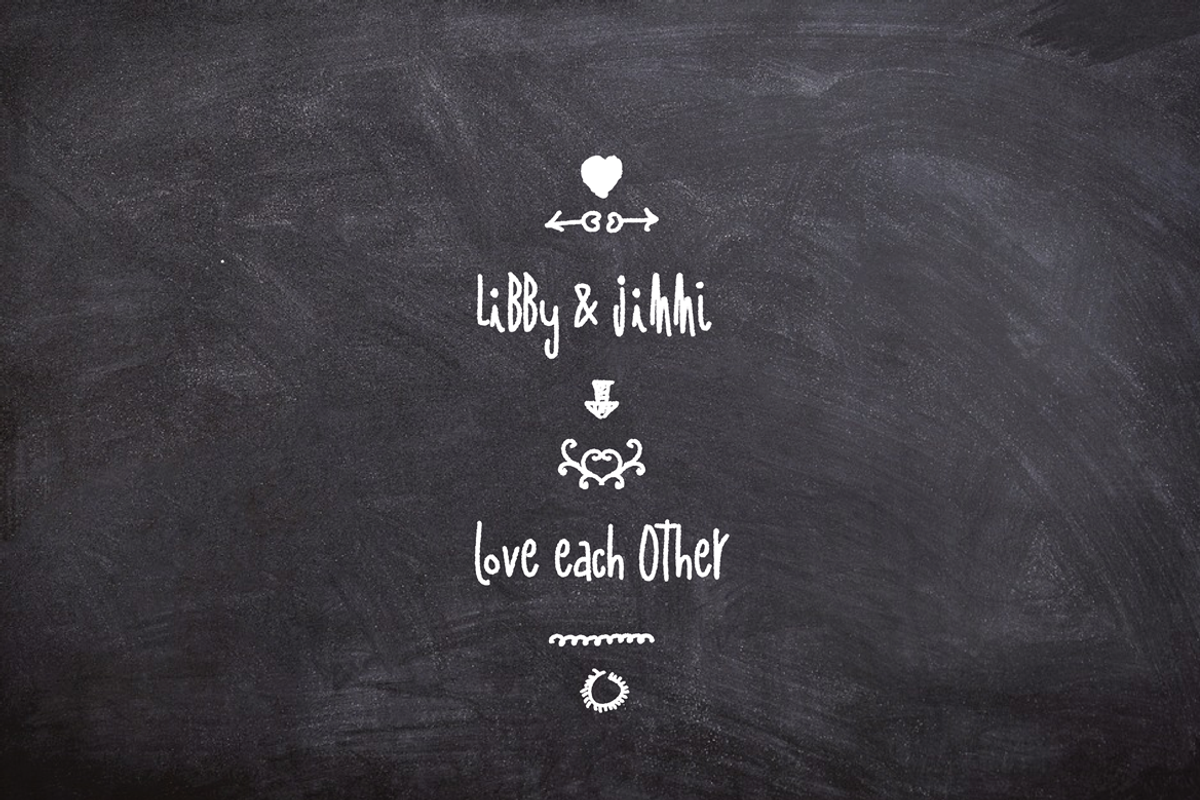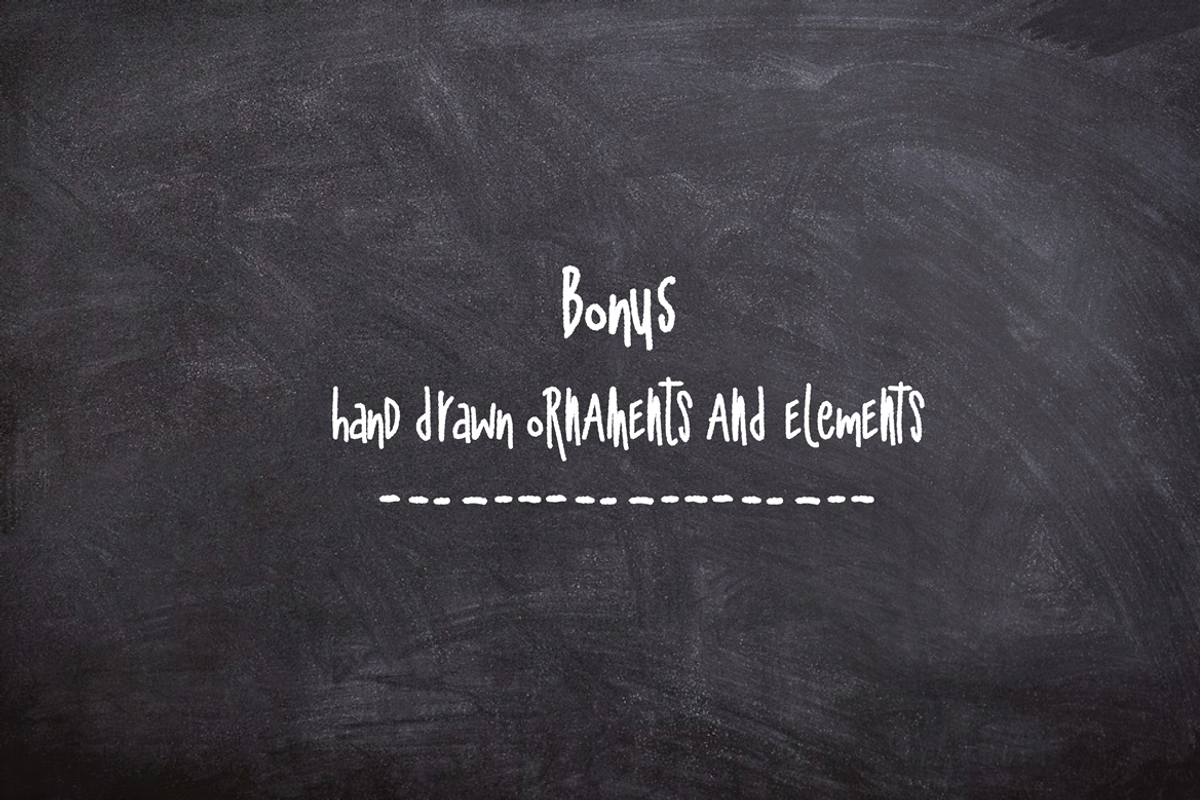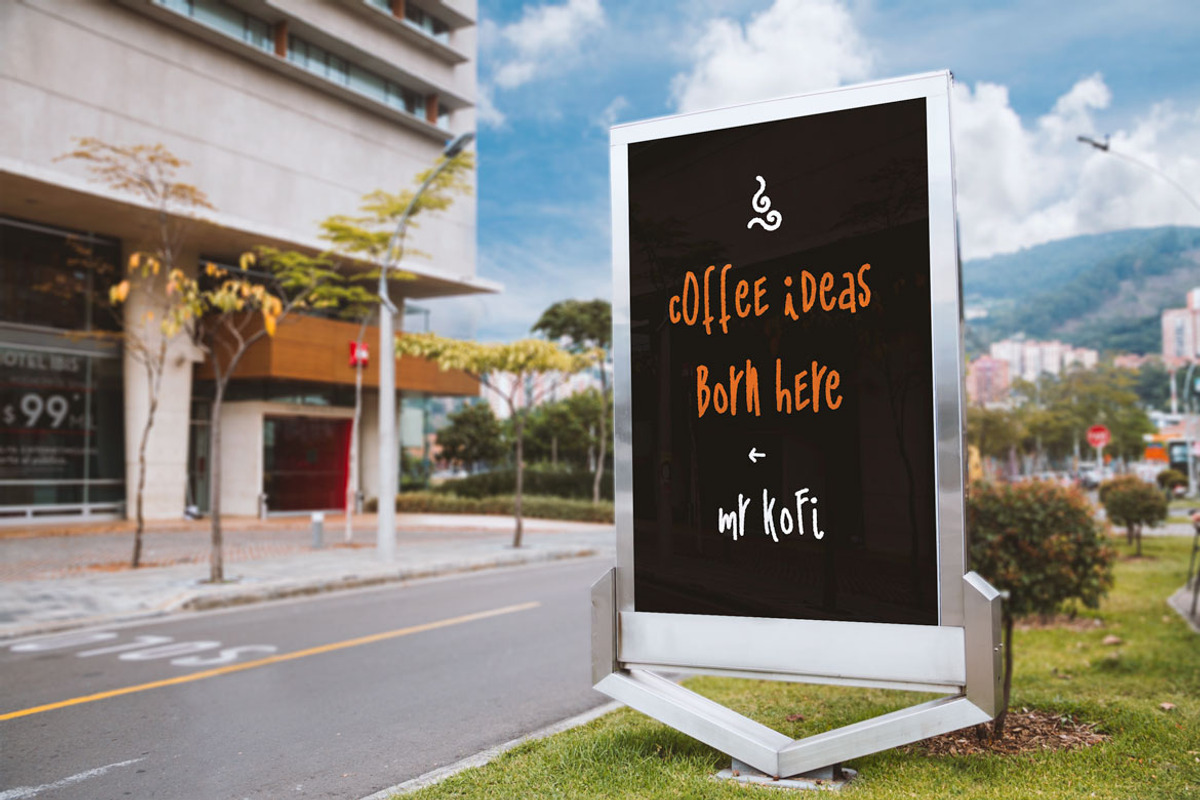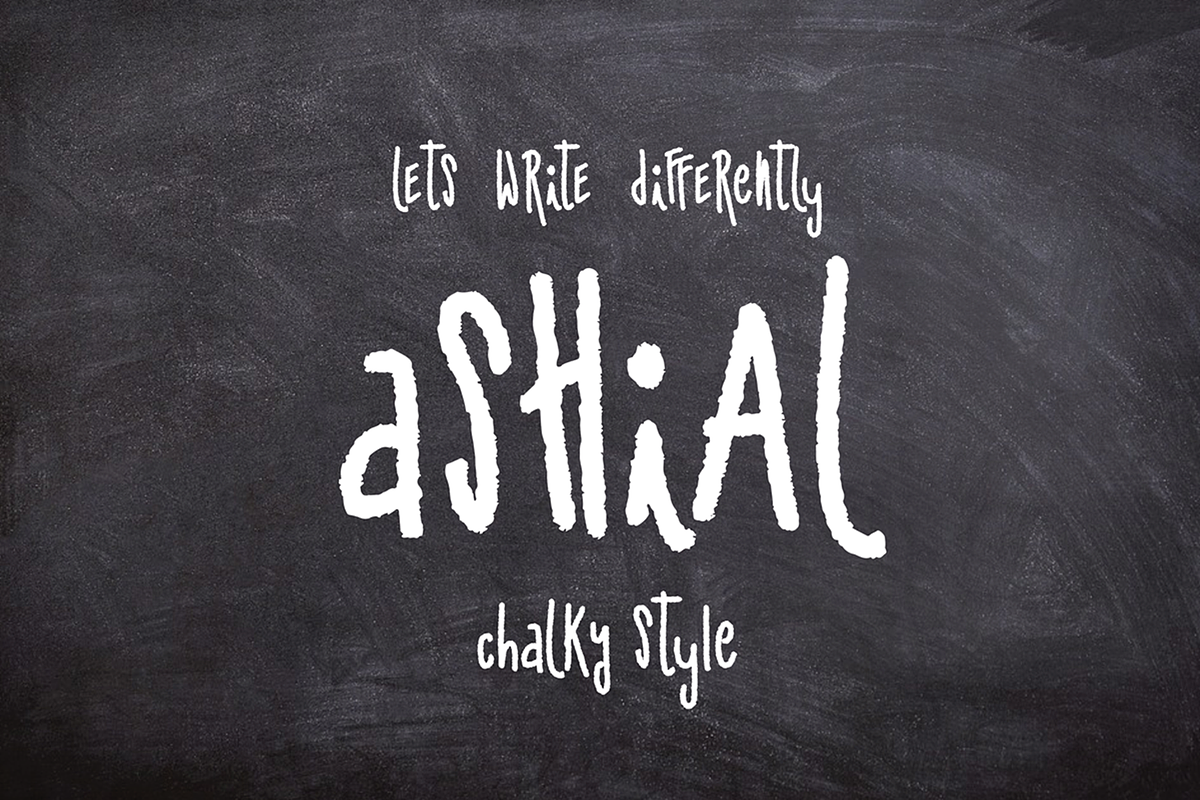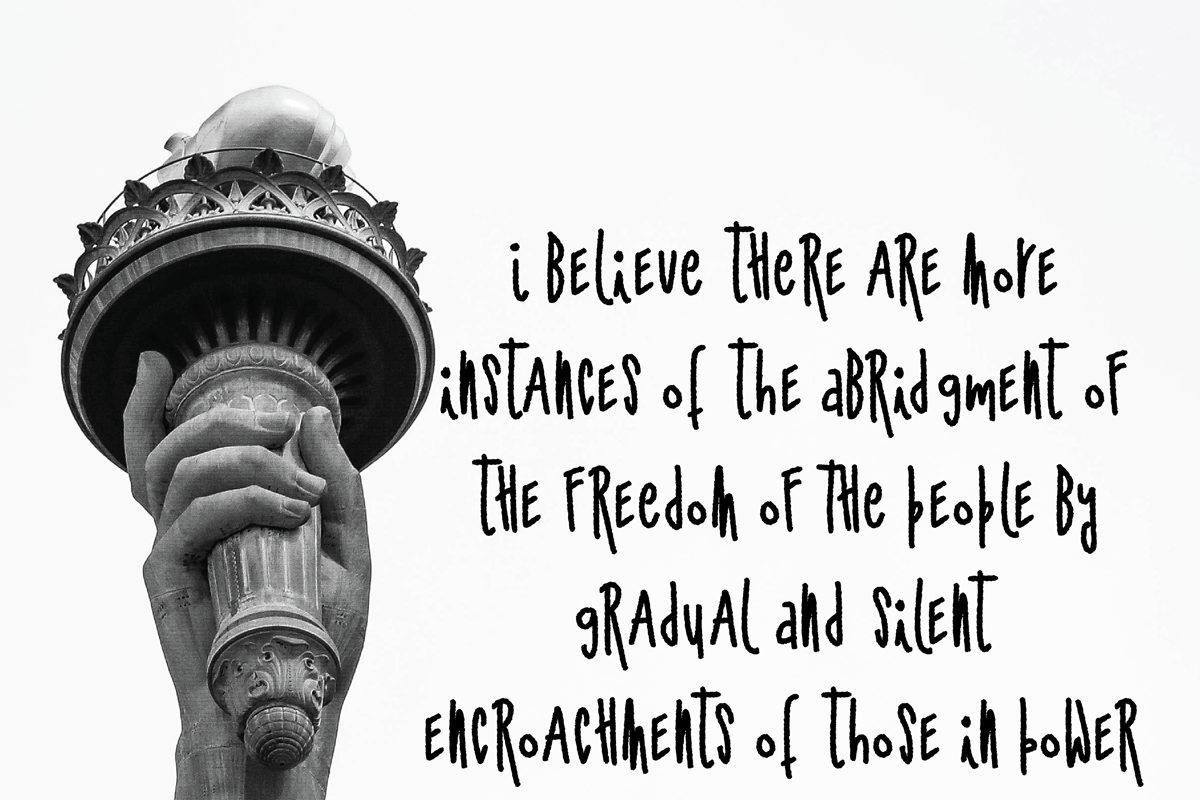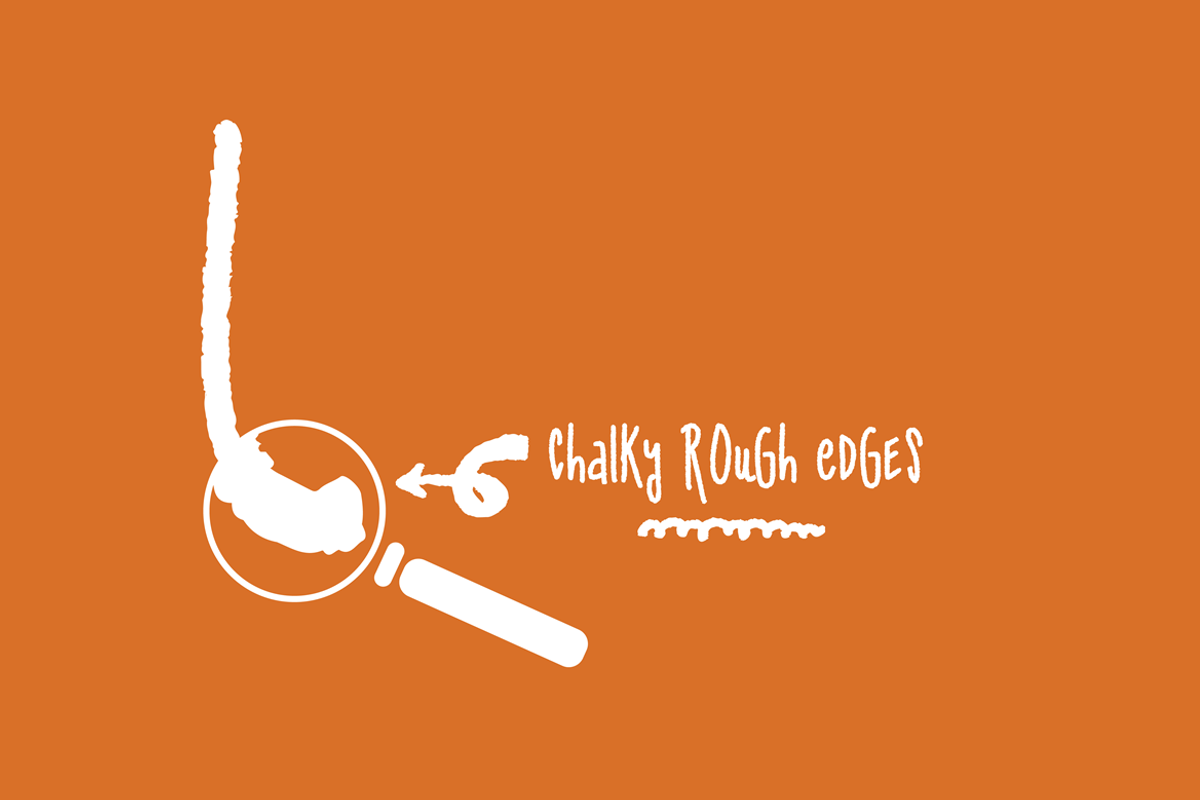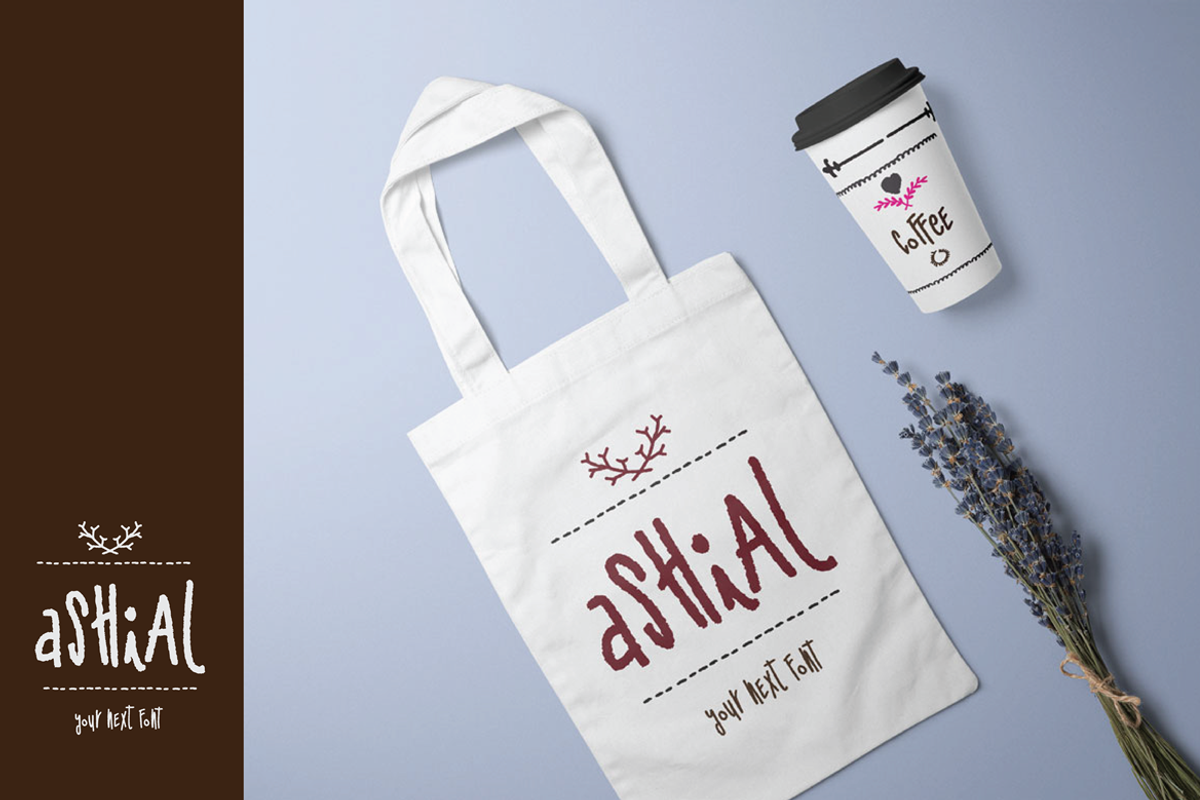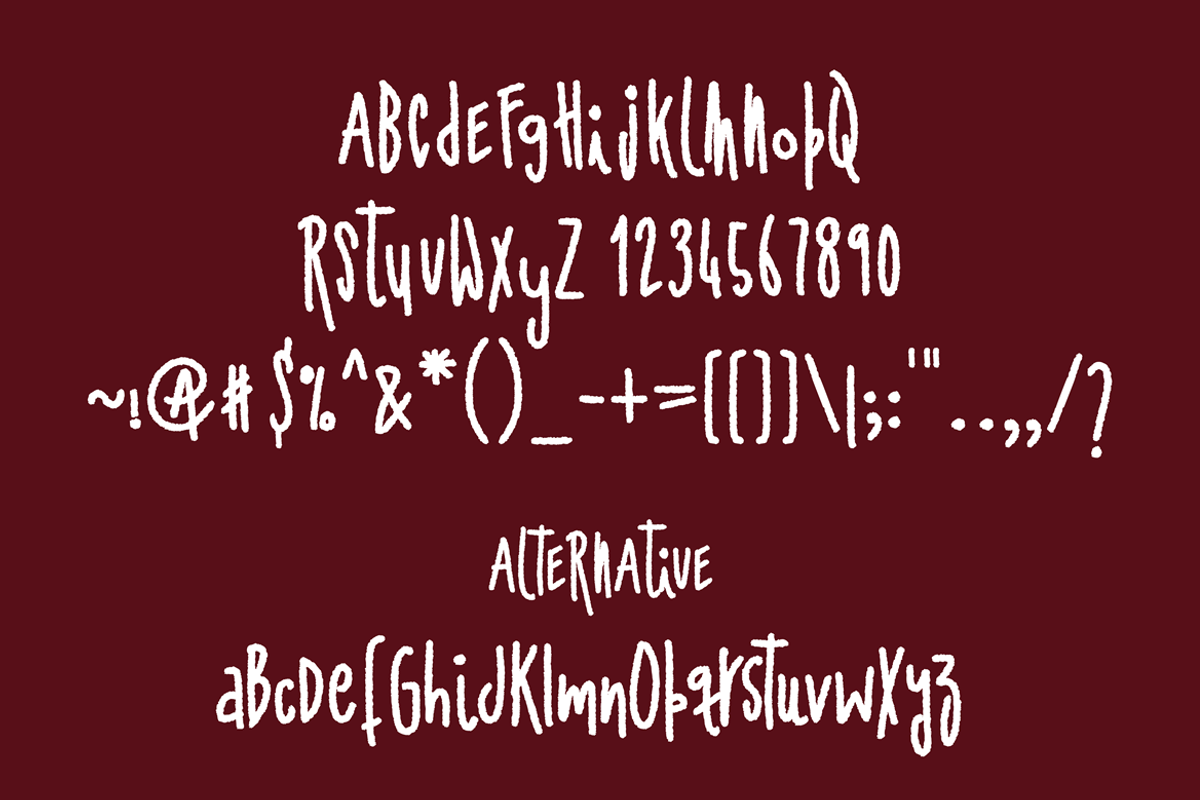
Ashial-Chalky font
why not write some thing in different way? some capital letters and some small letters.....something chalky and cheeky style? seems exciting..............yes it is............ Ashial gives you that cheeky look.......
- Also included some hand drawn ornaments and elements which you can design your own greeting cards, poster and your new product..